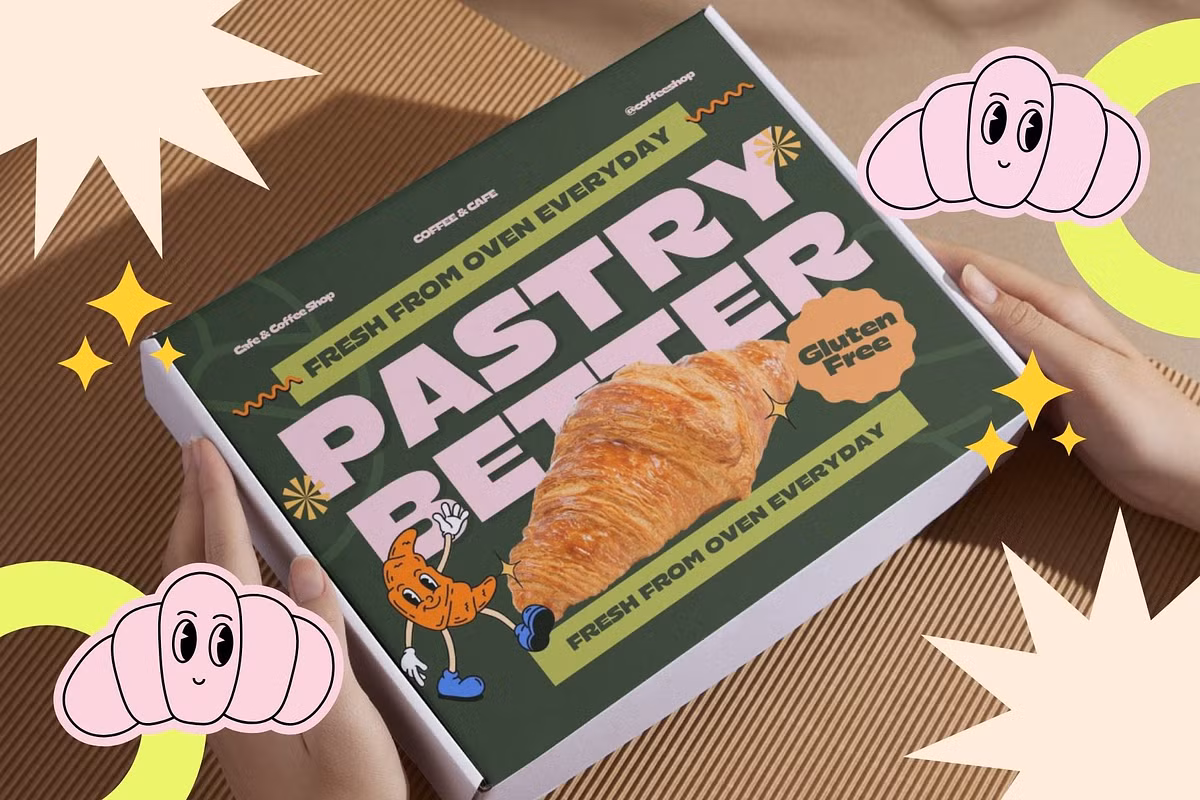
Bilda: Bold Sans-Serif Typeface for Modern Creative Projects
Introduction to Bilda
Bilda is a sans-serif typeface that adds a modern look, to the projects you create. Bilda makes a statement. Helps the text you write catch attention and feel modern. Bilda has a playful shape that balances style and ease so you can use Bilda in different applications.
Design Style of Bilda
Bilda is a sans serif font. The design of Bilda shows boldness and clarity. Bilda has lines and a geometric base that makes it easy to read. The heavy weight of Bilda gives a look to any design making your messages stand out. You can use Bilda for headlines, logos or promotional material. I have used Bilda in my projects. I find bold and clear. Bilda feels confident and modern.
I have seen Bildas playful side let Bilda stay friendly and easy to approach. I have seen the mix of boldness and approachability make Bilda a great pick, for brands that want to show professionalism and creativity. I notice Bildas unique traits draw the eye and invite engagement. I have seen Bilda work well for projects, in industries.
Character Sets and Language Support
Bilda comes with two styles: True Italic. I like that. When I use Bilda I can choose Regular for a look or True Italic, for a look. The variable italic support in Bilda gives me control, over slant and emphasis. The variable italic support lets me shape text layouts to fit my needs.
I have used the typeface on projects. I see that the typeface supports languages. The typeface includes Afrikaans, Albanian, English, French, German, Italian, Spanish, Zulu and many more. The typeface works well for projects. The typeface lets my designs reach an audience. The typeface does not sacrifice quality or readability.
Use Cases for Bilda
Bilda is a typeface that works well in the creative projects I have done. I have found Bilda for logos, posters, websites and other design work. Here are some key use cases:
- Branding: I think Bildas bold and modern aesthetic is a choice, for the logo design and the branding materials. Bildas bold and modern aesthetic has a presence that helps create the brand identity that people remember. Bildas bold and modern aesthetic works.
- Web Design: Bilda reads clearly. Bilda works well for web applications. When I use Bilda I see that the text stands out on screens of any size whether it is a headline or a paragraph. Bilda improves the user experience.
- Print Media: From brochures, to posters Bilda gets noticed in print formats. Print Media has weight that makes printed materials feel solid and look good. Print Media makes brochures and posters stand out. Print Media feels thick and sturdy, in the hand.
- Social Media Graphics: In the world of media the need to grab attention is key. I have seen Bilda stand out. Bildas boldness makes Bilda perfect, for eye‑catching posts and advertisements.
Pairing Suggestions for Bilda
I see that Bilda can stand on its own. When I pair Bilda with typefaces the designs improve. Here are some pairing suggestions:
- Serif Typefaces: I pair Bilda with a serif typeface, like Times New Roman or Georgia for a contrast. The bold sans-serif and the serif together give a look.
- Light Sans-Serifs: I often pair Bilda, with the light sans-serif typeface Open Sans or Lato. The pairing of Bilda with Open Sans or Lato gives an order in the typography. The pairing works well. The pairing of Bilda, with Open Sans or Lato also keeps the feel together.
- Handwritten Fonts: To add a feel pair Bilda with a font such, as Pacifico or Amatic SC. The combination adds warmth, to the designs.
I often choose Bilda when I need a font. You can find the Bilda Regular.otf and the Bilda Italic.otf. You can also find the variable font option called Bilda VariableVF.ttf. This variety lets you easily use Bilda in the design projects you work on no matter which software you are using.
Bilda is a bold sans serif typeface that works well for the projects. Bilda has a design, good flexibility and many language options. These features make Bilda a useful tool, for the designers who want to make an impression. Bilda’s friendly modern style helps Bilda improve any project. Bilda can be used for the branding, the web design, the print media or the social media graphics. I have used Bilda in my work. Found Bilda easy to read. Use Bilda. Let Bilda lift your work.